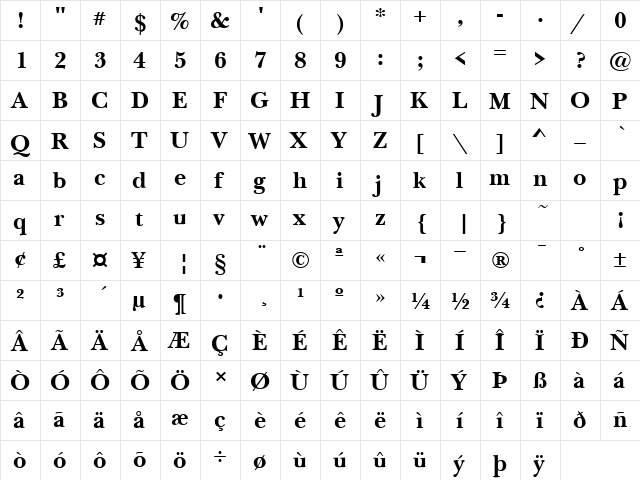
BaskervilleNovaH Bold
Design Context for BaskervilleNovaH Typeface
BaskervilleNovaH offers clean, dependable letterforms without strong stylistic allegiance, making it a practical choice for designers who need flexibility. Its bold stroke weight gives it real presence on the page.
Pro Tip: Pair BaskervilleNovaH with a font of contrasting weight or personality to build a more expressive typographic hierarchy.